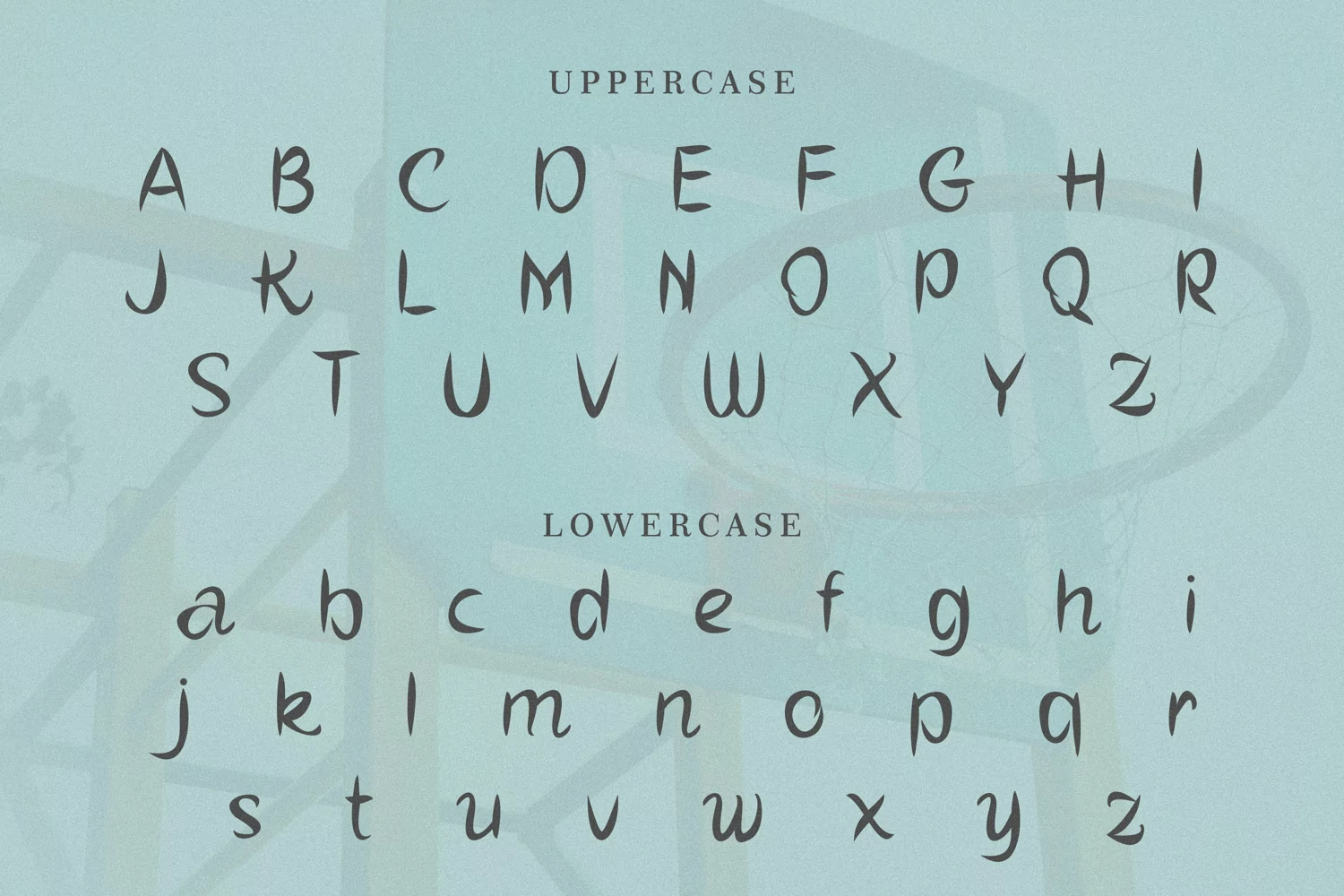
Bazuye is beauty font themes matches applies in some designs such as the logotype, brand, packaging, quotes, poster, t-shirt, cover book, invitation and more custom design. The features uppercase, lowercase, numeral, punctuation & symbol, multilingual support, PUA encoded (fully accessible without additional design software).
Bazuye